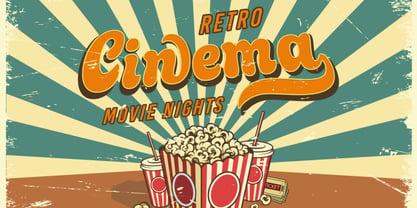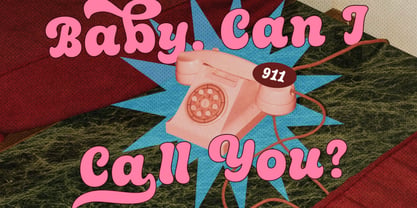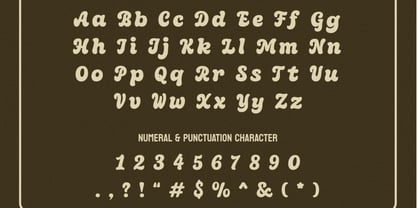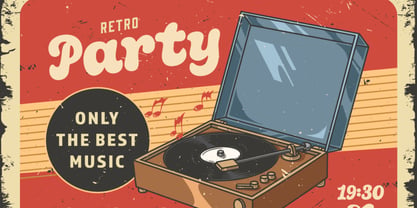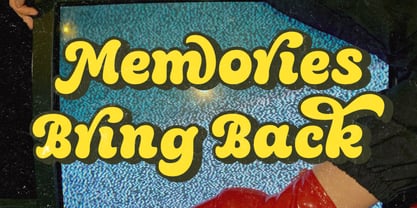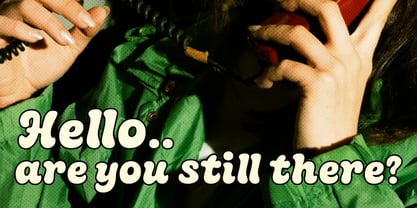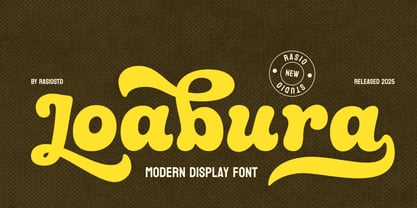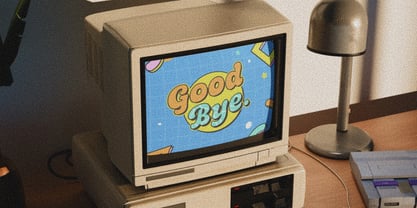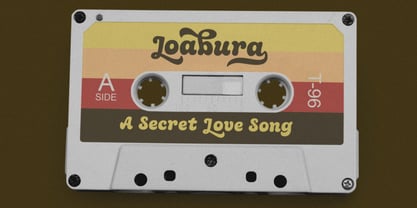
Loabura
by Rasio Studio
The Loabura Font Family was designed by Fajar Indra and published by Rasio Studio. Loabura contains 1 styles. More about this family
Loabura is a playful bold script font with a nostalgic twist. Inspired by vintage signage, bubble lettering, and retro pop culture, Loabura features thick curves, smooth terminals, and expressive alternates. It’s a modern display font with a touch of fun and personality ideal for branding projects, poster headlines, packaging, or anything that needs a bold, friendly voice. The font includes uppercase, lowercase, numerals, punctuation, and alternate characters, supporting multilingual use. Loabura works best in larger sizes to emphasize its quirky energy and distinctive flow. Loabura is perfect for designers who want to inject personality into their work. Whether you're creating product packaging, retro posters, social media graphics, t-shirt designs, or branding for a quirky café or handmade product Loabura delivers bold charm with a nostalgic vibe.
Designers: Fajar Indra
Foundry: Rasio Studio